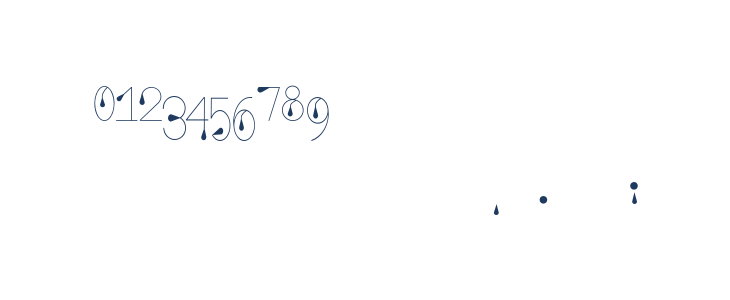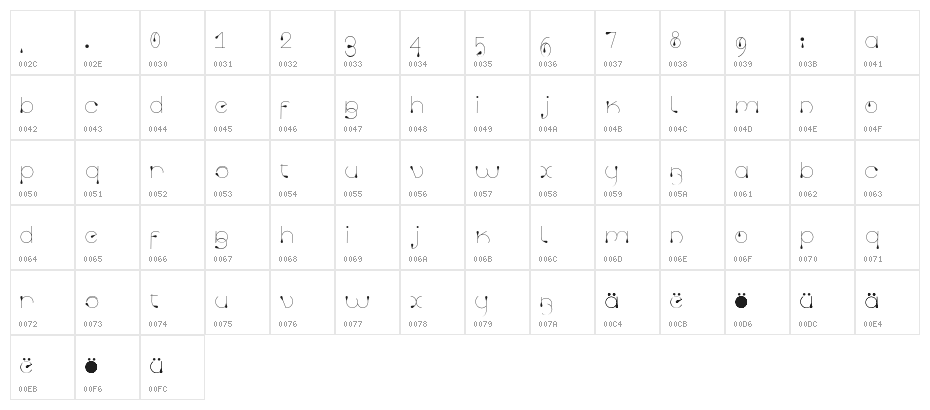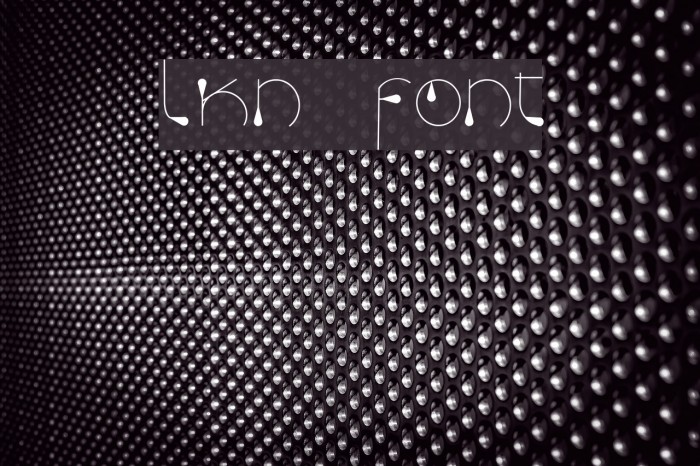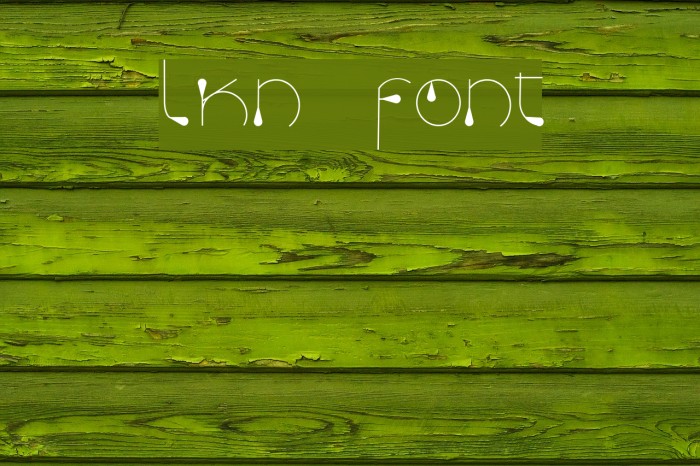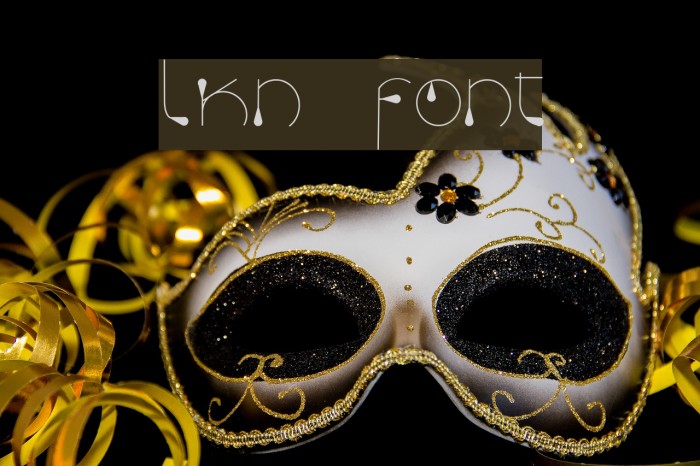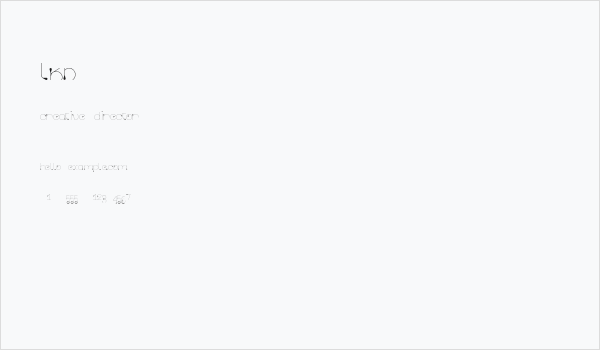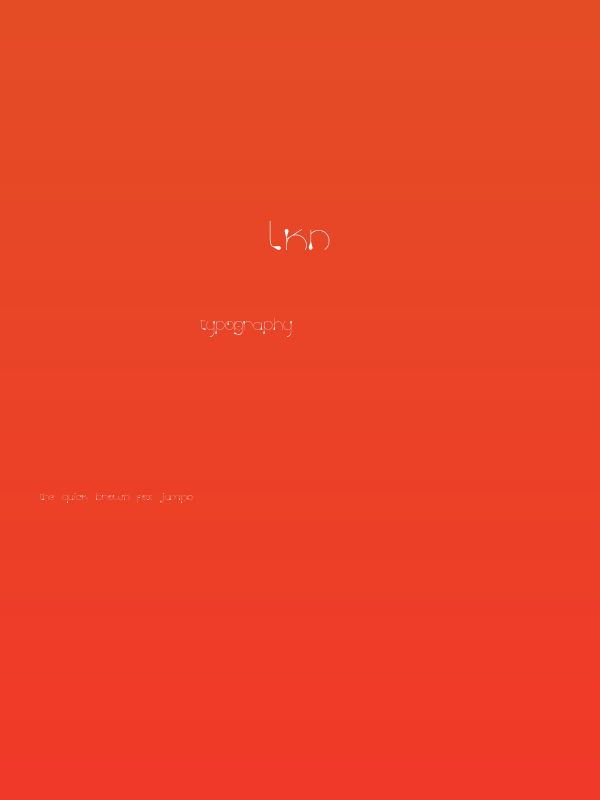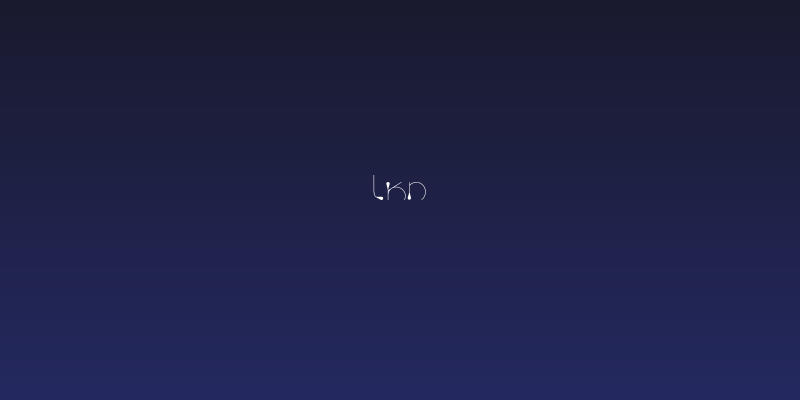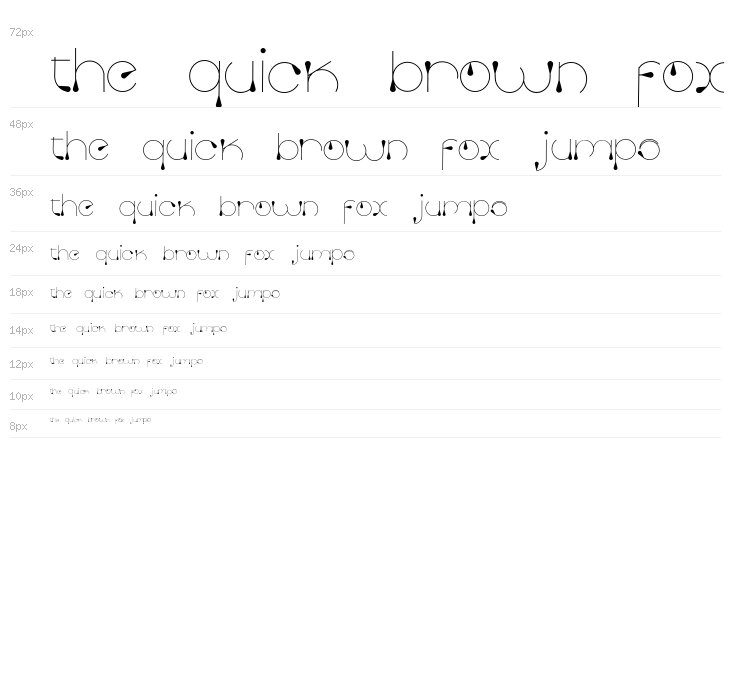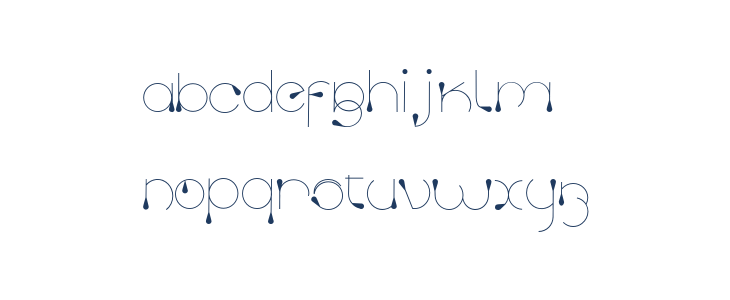
lkn Font
lkn Description
This font features a unique and artistic design with a modern twist. Each character is adorned with teardrop-like embellishments, giving it a distinctive and decorative appearance. The strokes are thin and elegant, creating a sense of fluidity and movement. The overall design is both playful and sophisticated, making it suitable for creative and artistic projects. The numbers and special characters follow the same design principles, ensuring consistency throughout the font.
| Proposed Projects | Ideal for artistic projects, invitations, branding, and creative designs that require a unique and decorative touch. |